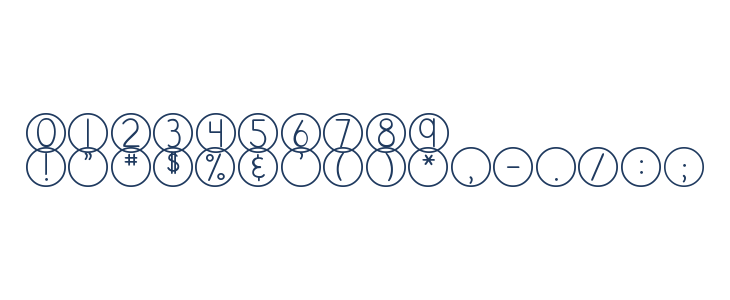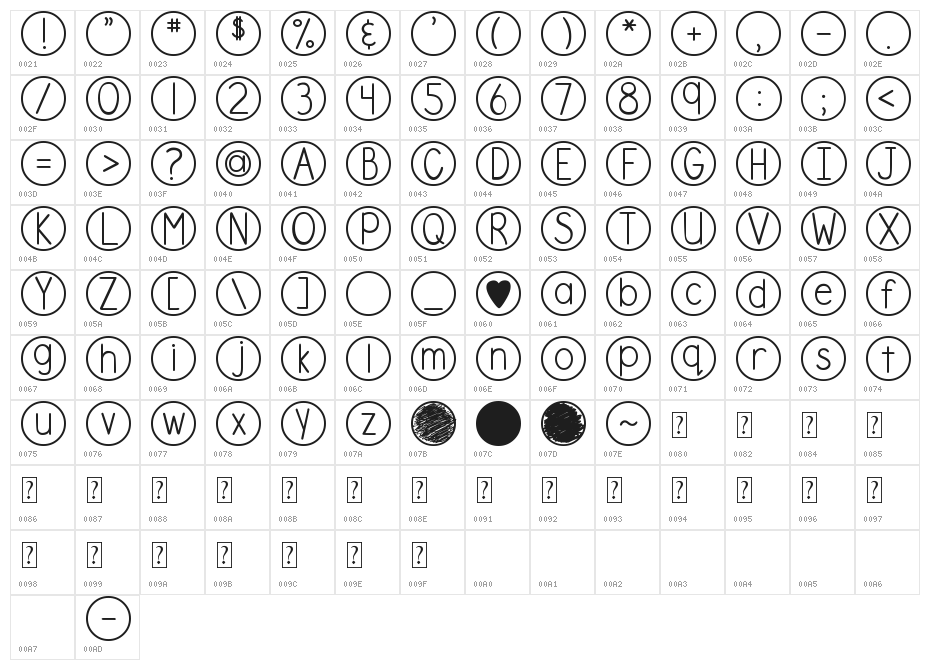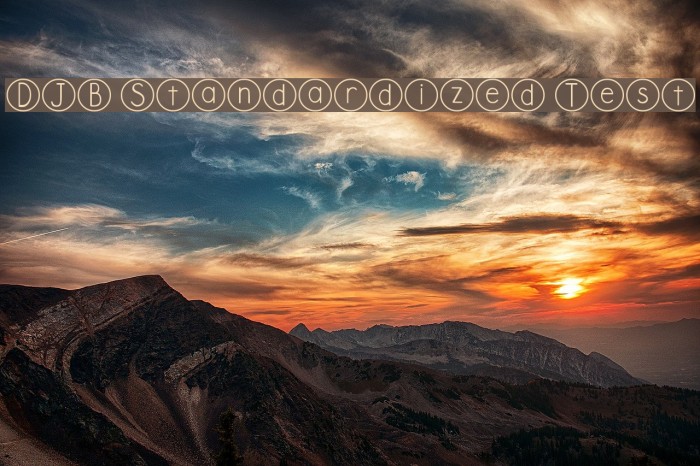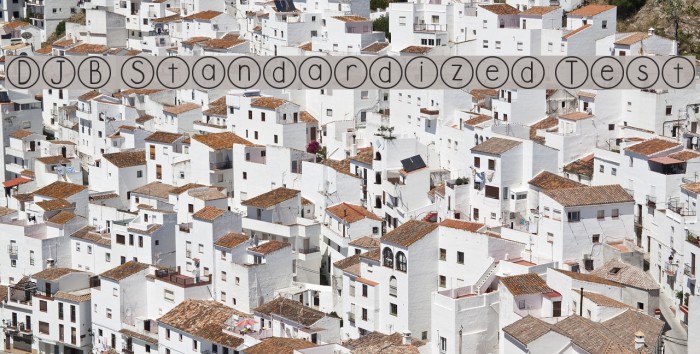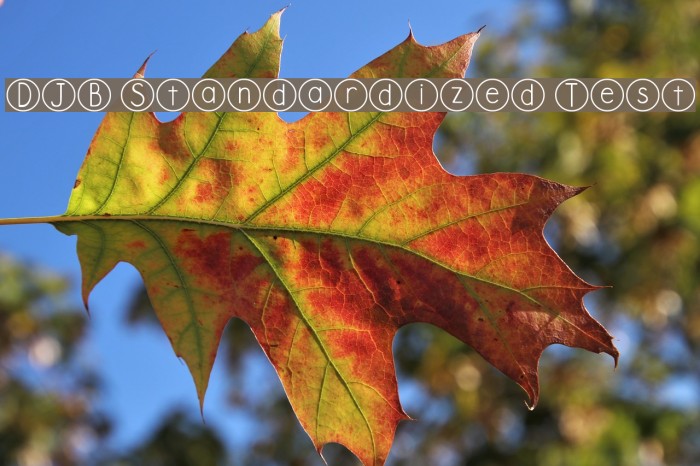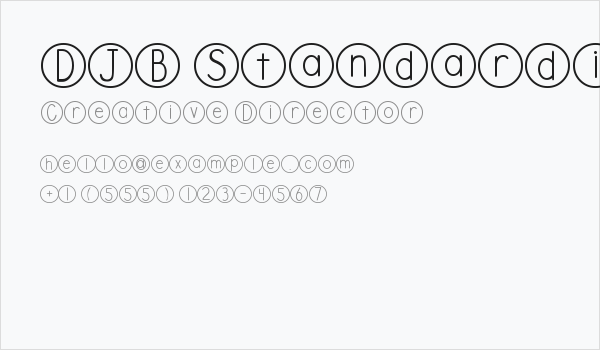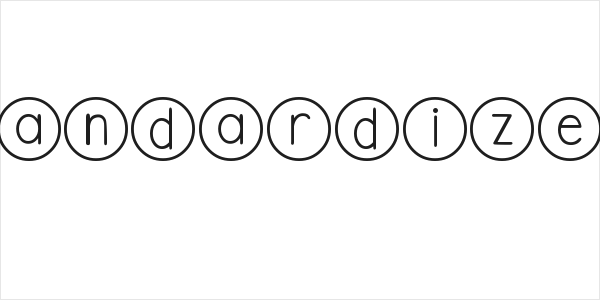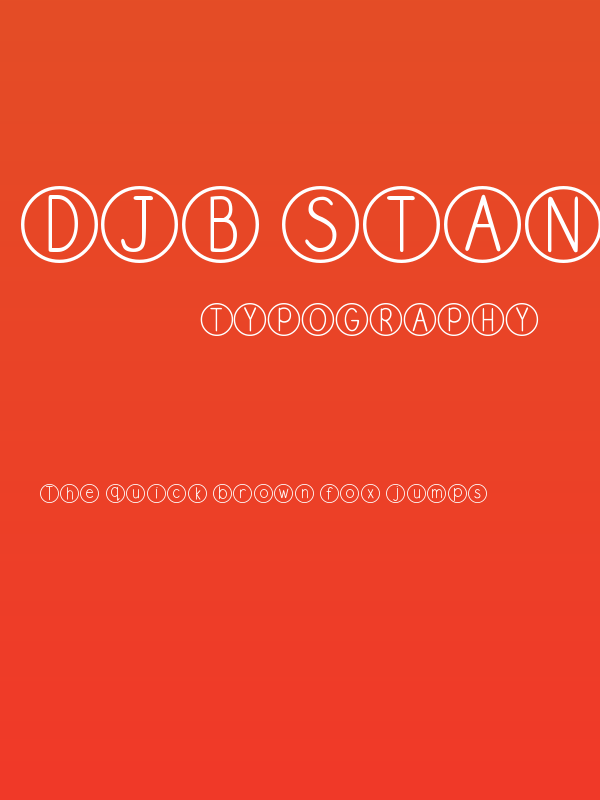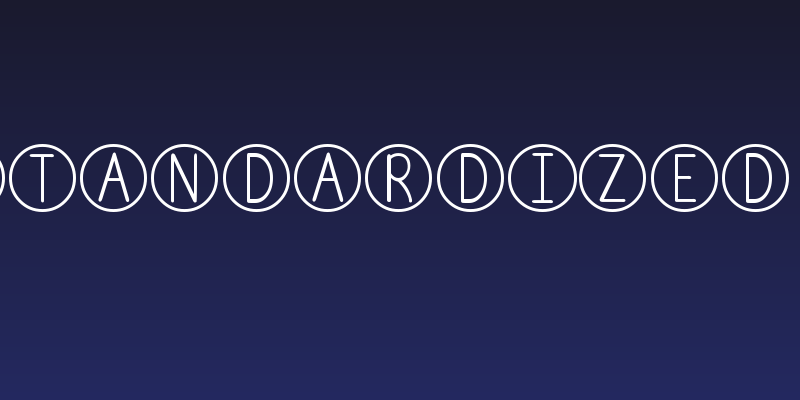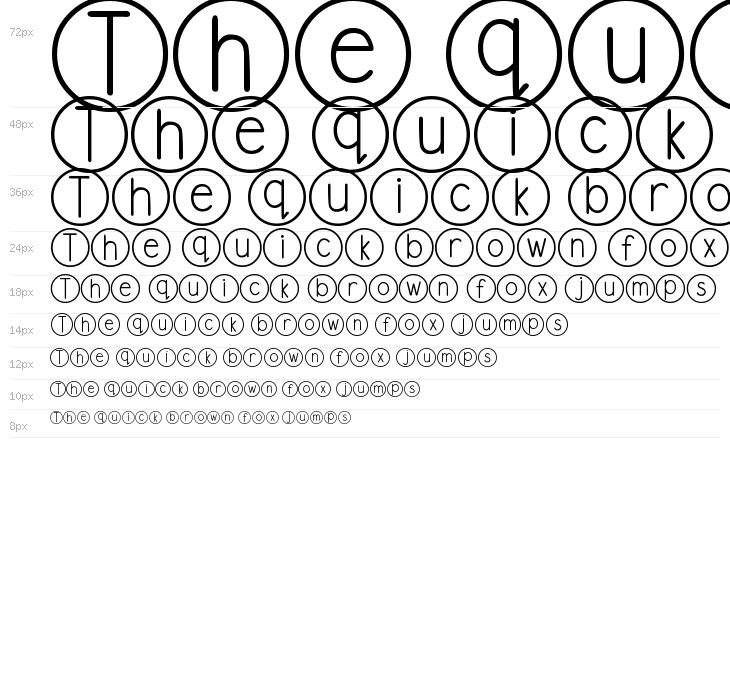
DJB Standardized Test Font
DJB Standardized Test Description
This font features a unique design where each character is enclosed within a circle, creating a distinct and playful appearance. The characters themselves are sans-serif, with clean and simple lines that ensure legibility. The circular enclosures add a decorative element, making the font stand out for creative uses. The uniformity of the circles provides a cohesive look across all characters, including uppercase, lowercase, numbers, and special symbols. This design is particularly suitable for projects that require a fun and engaging visual style, such as children's materials, playful branding, or themed event invitations.
| Overall Style | Playful, Decorative |
| Proposed Projects | Ideal for children's books, playful branding, themed event invitations, and educational materials. |